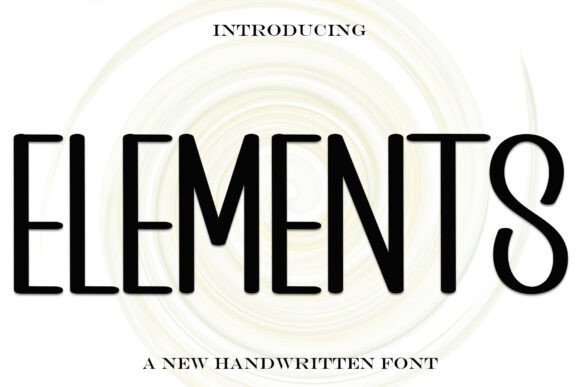
Discover the Magic of Handwritten Fonts
Have you ever found yourself scribbling down ideas in a notebook, only to realize that your handwritten notes are the perfect inspiration for a design project? That’s exactly what happened to many designers when they discovered the Elements Font – a sweet and friendly handwritten font that brings a touch of personality to any design.
Elements Font is more than just a font, it’s a tool that helps designers connect with their audience on a deeper level. Its natural and unique style makes it incredibly fitting to a wide range of designs, from greeting cards to magazine covers, and even website headers. The Elements Font is a valuable addition to any designer’s toolkit, and its versatility is limited only by your imagination.
Key Features of Elements Font
- Unique Characteristics: Elements Font features a unique blend of geometric and organic shapes, creating a distinctive and modern aesthetic.
Elements Font Review
Overall, I think the Elements Font has some great qualities, but it’s not without its flaws. Let’s start with what works well: ✨ Clean lines and modern aesthetic, ✨ Excellent readability, and ✨ Friendly licensing options. The font’s design is sleek and sophisticated, making it perfect for a wide range of applications, from digital products to print materials.
Here are some areas where the font could improve:
- ⚠️ Limited language support: While the font includes support for many languages, it’s not comprehensive, which might be a concern for designers working on global projects.
- ⚠️ Not ideal for small text: The font’s design makes it difficult to read in smaller sizes, which could be a problem for designers who need to use it for body text or other small-scale applications.
Overall, I think the Elements Font is a solid choice for designers who want a modern and clean font for their projects. However, it’s not perfect, and designers should be aware of its limitations before making a decision.
Tips for Getting the Most Out of Elements Font
Experiment with different font sizes, colors, and styles to create visually appealing designs.
Pair Elements Font with other elegant fonts for a sophisticated look.
Use Elements Font for headings, titles, and body text to create a cohesive design.
Elements Font is ideal for:
Designing luxury brands and products
Creating high-end marketing materials
Developing elegant websites and web applications
Alternatives to “Elements Font” for Designers
Inter Font is a clean, sans-serif font designed by Rasmus Andersson. It’s perfect for digital products, websites, and applications where a modern and minimalist aesthetic is desired. Inter Font is highly legible and versatile, making it suitable for a wide range of applications, from body text to headings.
Comparison to Elements Font: Inter Font has a more modern and sleek design compared to Elements Font. While Elements Font has a more rounded feel, Inter Font has a more angular and geometric shape. Inter Font is also more versatile and can be used in a wider range of applications.
Lato Font is a modern sans-serif font designed by Łukasz Dziedzic. It’s ideal for use in websites, applications, and digital products where a clean and elegant look is desired. Lato Font is highly legible and works well in both print and digital media.